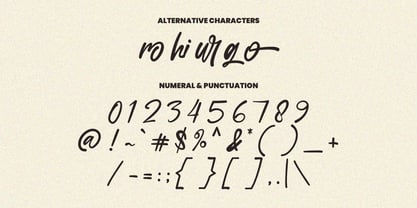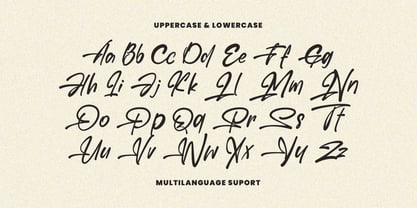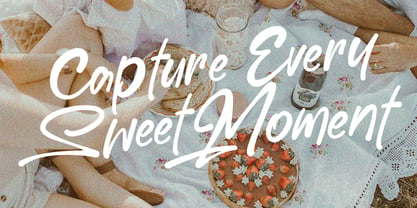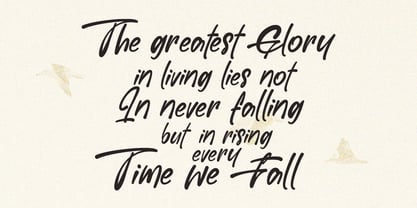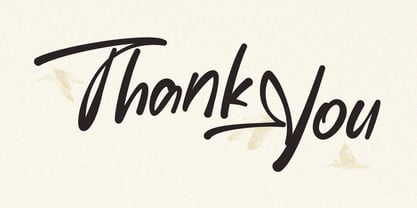
MC Haguro Shiro
by Maulana Creative
The MC Haguro Shiro Font Family was designed by Gilang Maulana and published by Maulana Creative. MC Haguro Shiro contains 1 styles. More about this family
Give your designs an authentic handcrafted feel. “Haguro Shiro Signature Handmade Display Font” is perfectly suited to stationery, logos and much more. Include alternative character and ligature characters.
Designers: Gilang Maulana
Foundry: Maulana Creative